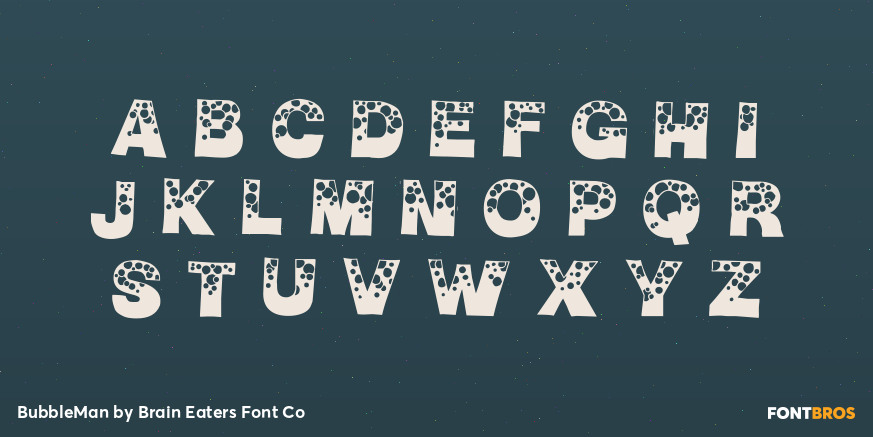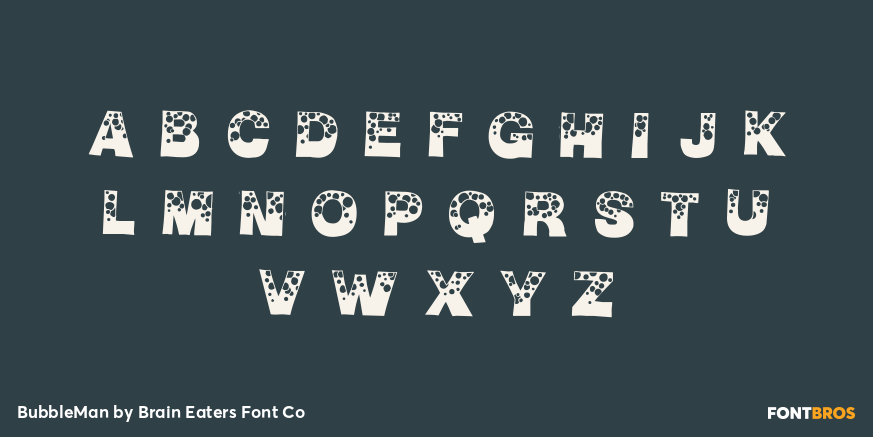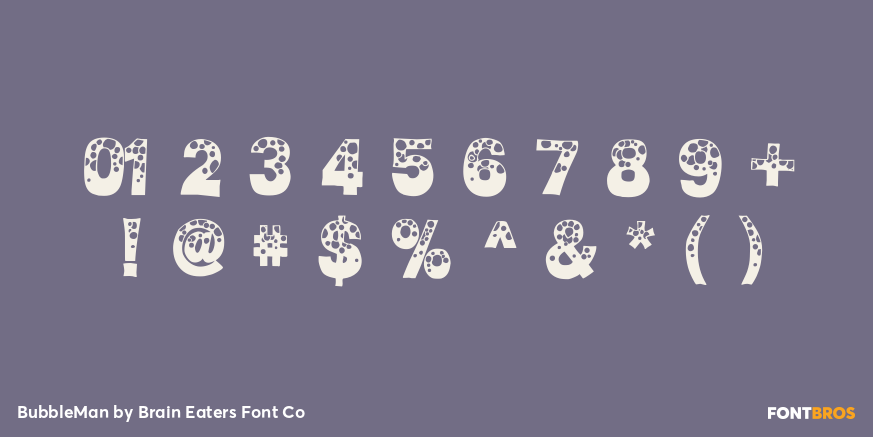
BubbleMan
Font Family by Brain Eaters Font Co
BubbleMan is a playful novelty display font with a bold, bubble-filled look and rounded corners that give it an upbeat, cartoonish personality. Its high-contrast shapes, polka dot inlines, and bubbly texture create a quirky retro-pop feel that reads loud, fun, and unmistakably decorative.
With 1 font style in the family from Brain Eaters Font Co, this is a strong choice for display work that needs instant character. It suits kid-friendly graphics, fun posters, party pieces, playful branding, novelty packaging, and other decorative projects where a bubbly, offbeat voice can take center stage.